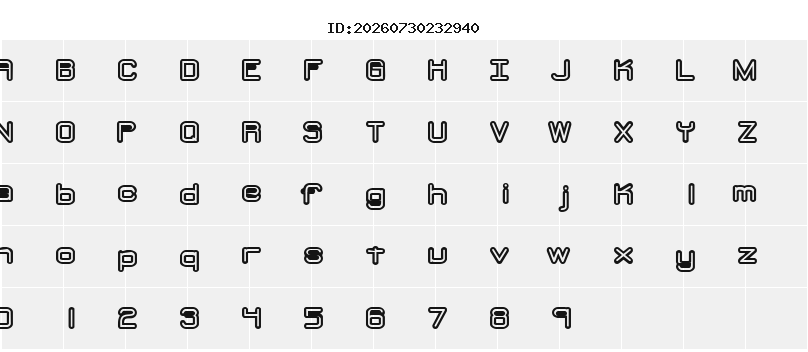
• Font Name: Loopy (BRK)
• Description: To use this Font you have to use a LOOP Character { which are -+()<> SPACE and _ } then you use a regular Alphanumeric Character { Aa to Zz, 0 to 9, and ?&!@ } then repeat the process, to type out a string of text. Here's an example: (-I+NI>N is the same as the single Loop but it also has a small loop on the bottom of it. SPACE the Space(bar) is used to make a Blank Loop. { For example (-A- -Z) would make A in a loop, a Blank loop, then Z in a loop }. _ (underscore) is only used for when you just want to use the Alphanumeric Characters and NO Loops. { For Example _T_e_s_t }. If you just use Alphanumeric Characters, the Characters will just overlap each other.
Loopy (BRK).ttf is a modern, elegant sans-serif font designed for ultimate readability and visual harmony. Perfect for branding, headlines, web design, and print materials.